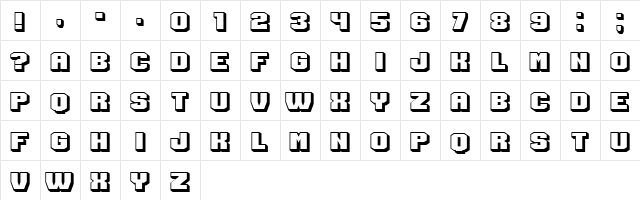
Extradition Regular Free Font
Extradition Regular
Extradition Family
Design Context for Extradition
Extradition is a composed and adaptable typeface that performs quietly and consistently across a wide range of design contexts.